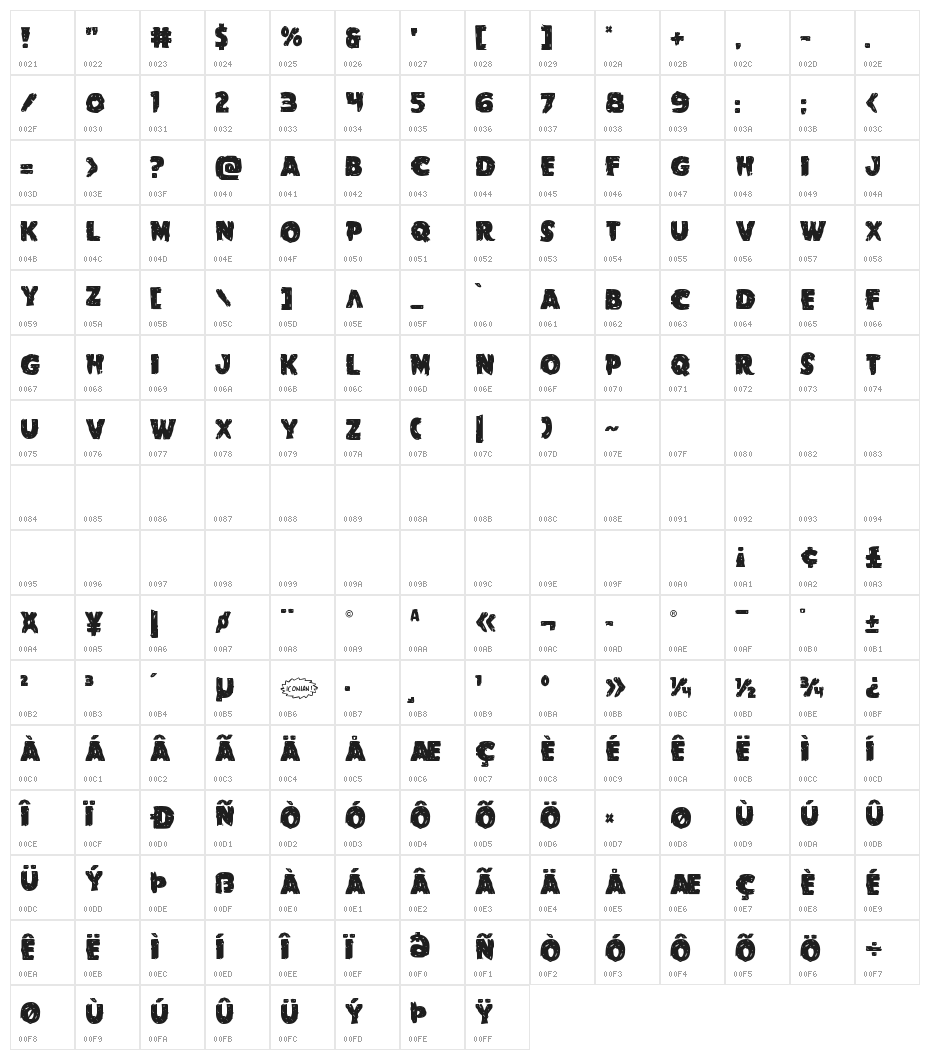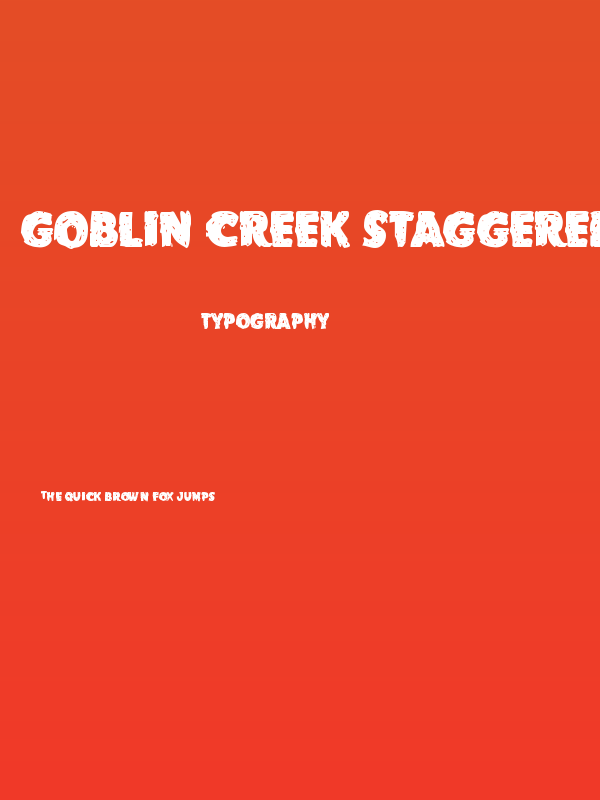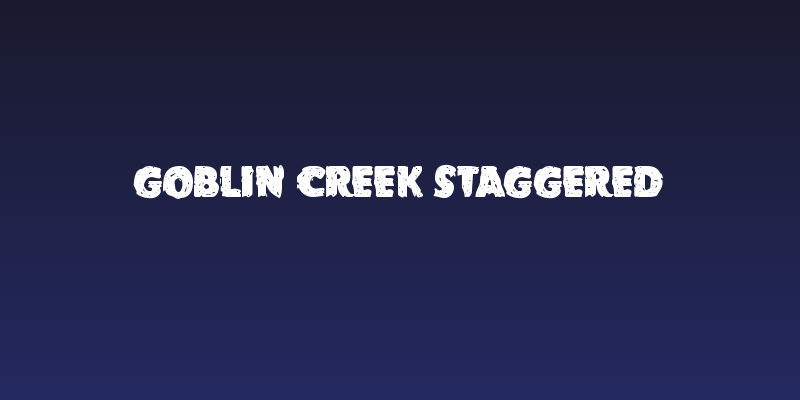
Goblin Creek Staggered Font
Goblin Creek Staggered Description
This font features a bold and playful design with a rugged, textured appearance. The characters are heavily stylized, giving them a unique and quirky look, reminiscent of hand-drawn or carved letters. The irregular edges and varying thicknesses add to its whimsical charm, making it stand out in any design. The font maintains a consistent weight throughout, ensuring readability despite its decorative nature. Its distinct style is perfect for projects that require a touch of creativity and fun.
| Proposed Projects | Ideal for Halloween-themed designs, children's book covers, playful posters, and creative branding projects. |